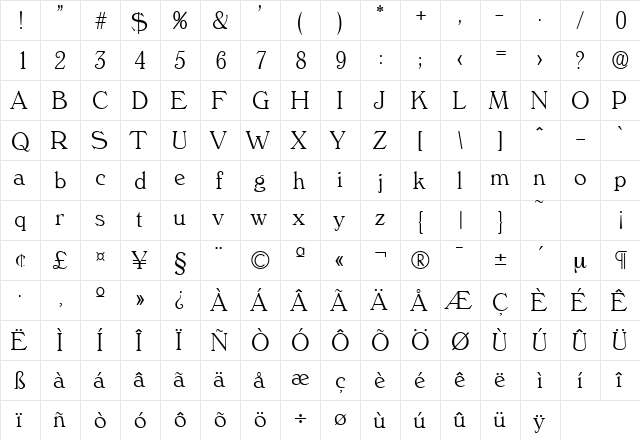
Verona-Serial-ExtraLight Extra Light Font Preview
Verona-Serial-ExtraLight Extra Light
Verona-Serial-ExtraLight Extra Light Font Details
Design Context for Verona-Serial-ExtraLight Typeface
Verona-Serial-ExtraLight takes a measured approach to typography — its balanced proportions and neutral character make it a reliable workhorse for both digital and print work. The delicate stroke weight brings airiness and refinement to layouts.